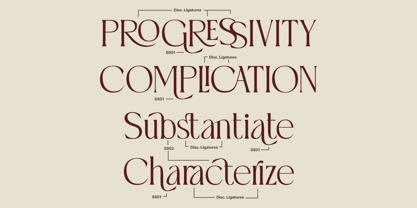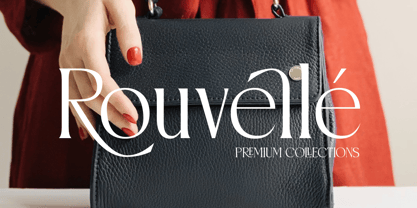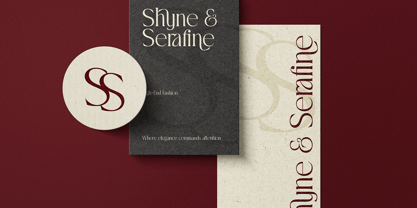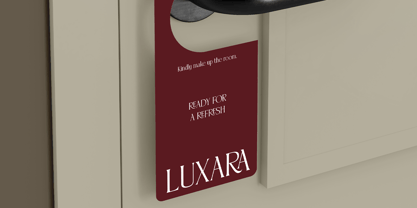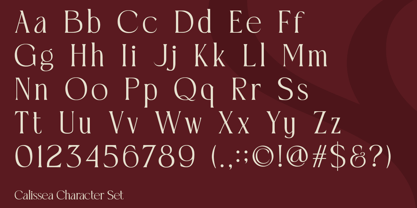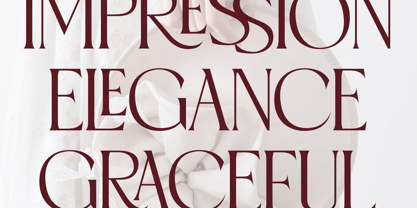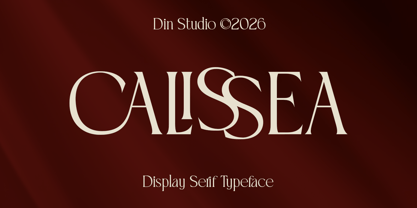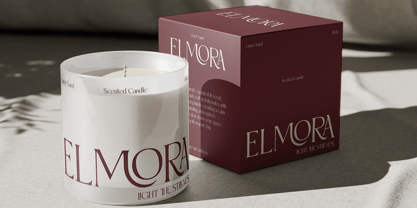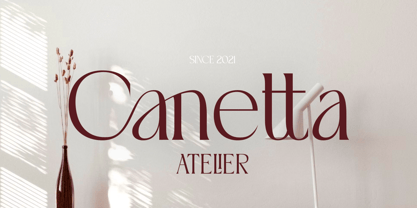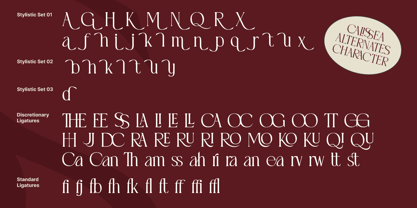
Calissea
The Calissea Font Family was designed by Donis Miftahudin and published by Din Studio. Calissea contains 1 styles. More about this family
Calissea is a sophisticated serif display font. With its delicate strokes and graceful structure, Calissea captures the essence of contemporary luxury while maintaining the timeless beauty of classic serif design. The defining characteristic of Calissea lies in its thin, refined letterforms combined with noticeable contrast between thick and thin strokes. This contrast creates a dynamic and stylish rhythm, adding depth and visual interest to every character. In addition, enjoy the features here. Features: Ligatures Stylistic Sets Multilingual Supports PUA Encoded Numerals and Punctuations Calissea fits in invitations, logos, quotes, branding, posters, and many more designs. Find out more ways to use this font by taking a look at the font preview. Thanks for purchasing our fonts. Hopefully, you have a great time using our font. Feel free to contact us anytime for further information or when you have trouble with the font. Thanks a lot and happy designing.